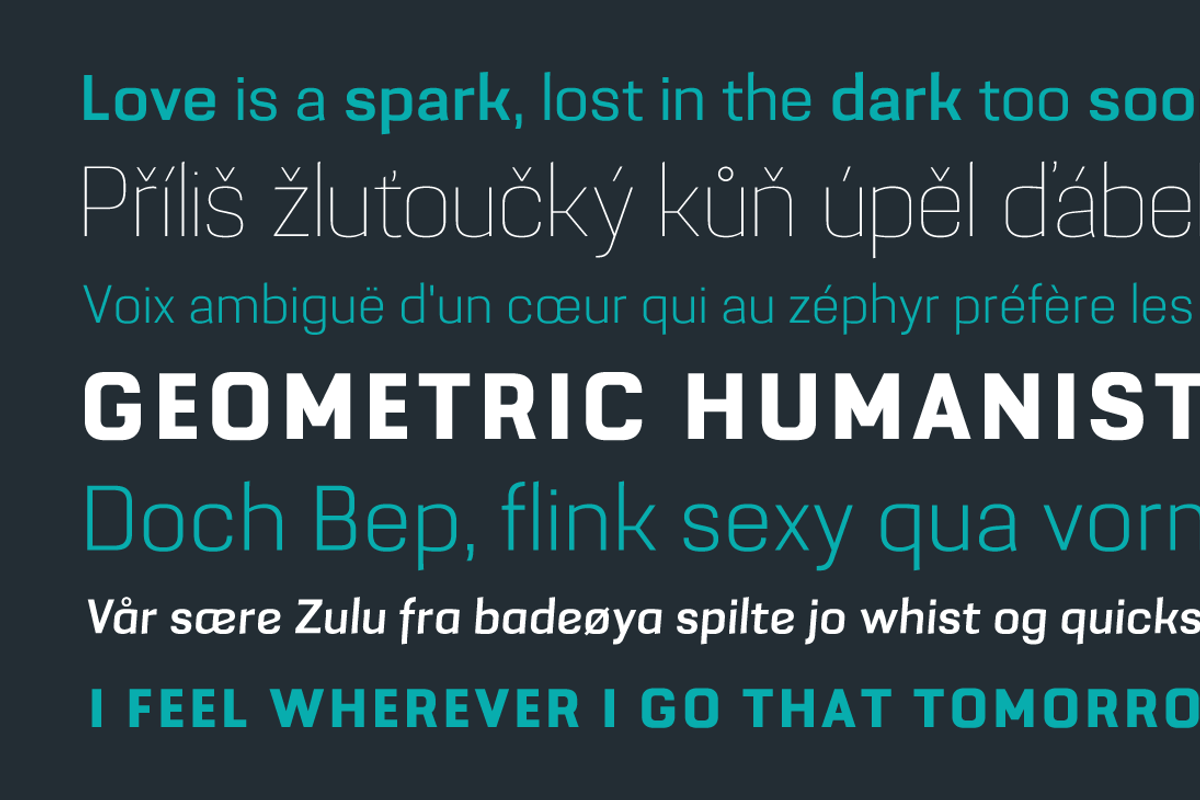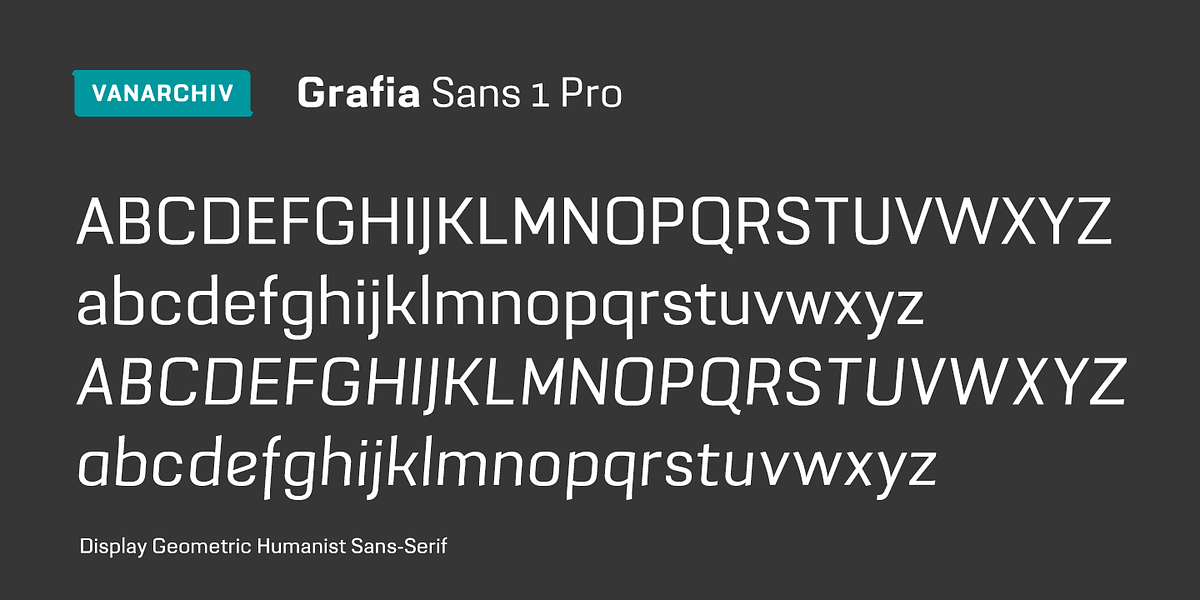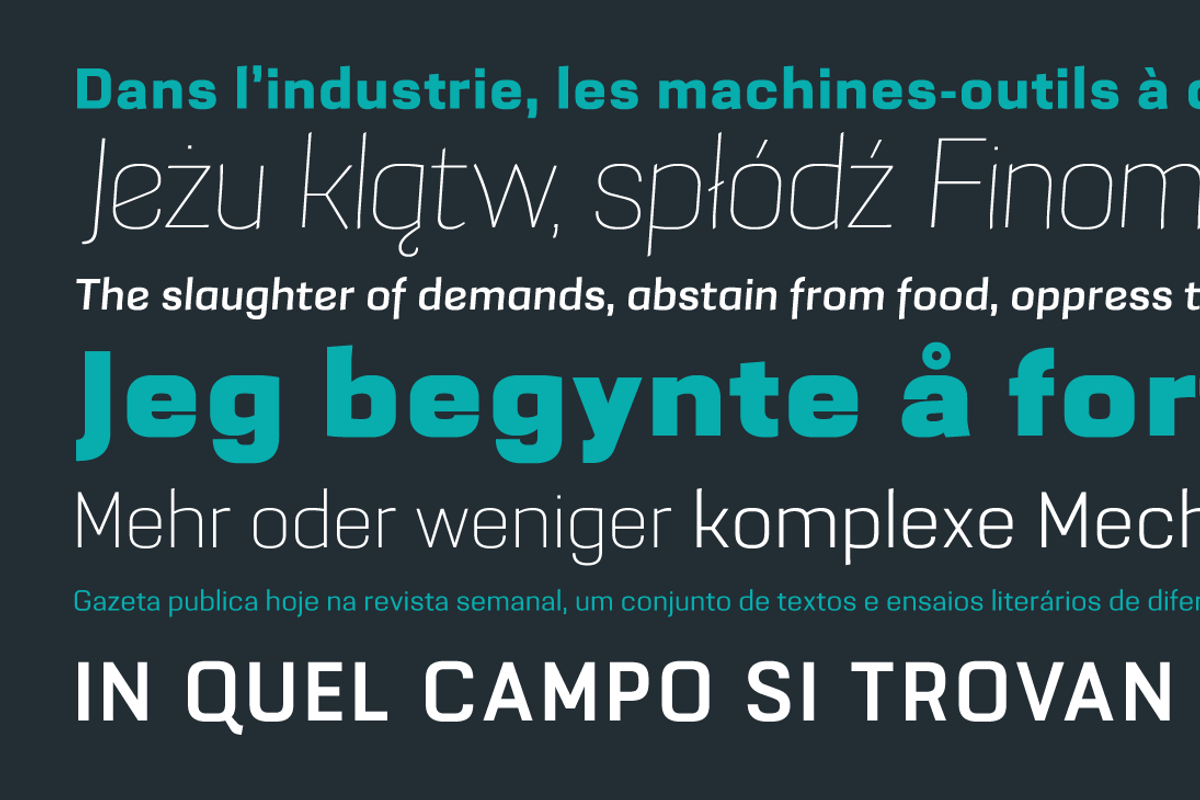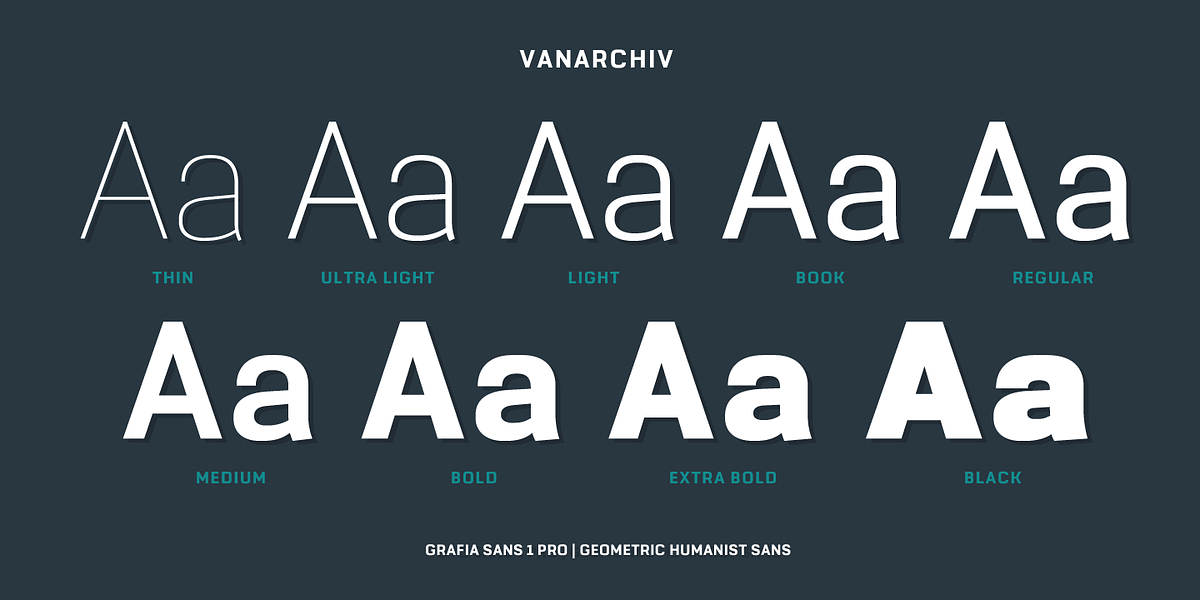
Grafia Sans 1 Pro
Grafia Sans 1 Pro is a humanist sans-serif typeface with geometric influences. Its design draws inspiration from classic typefaces like Helvetica, DIN, and Univers, aiming to maintain a typographically neutral atmosphere. The font features close terminals and distinct italic styling with a slightly skewed angle of five degrees and narrower letterforms compared to the regular version.